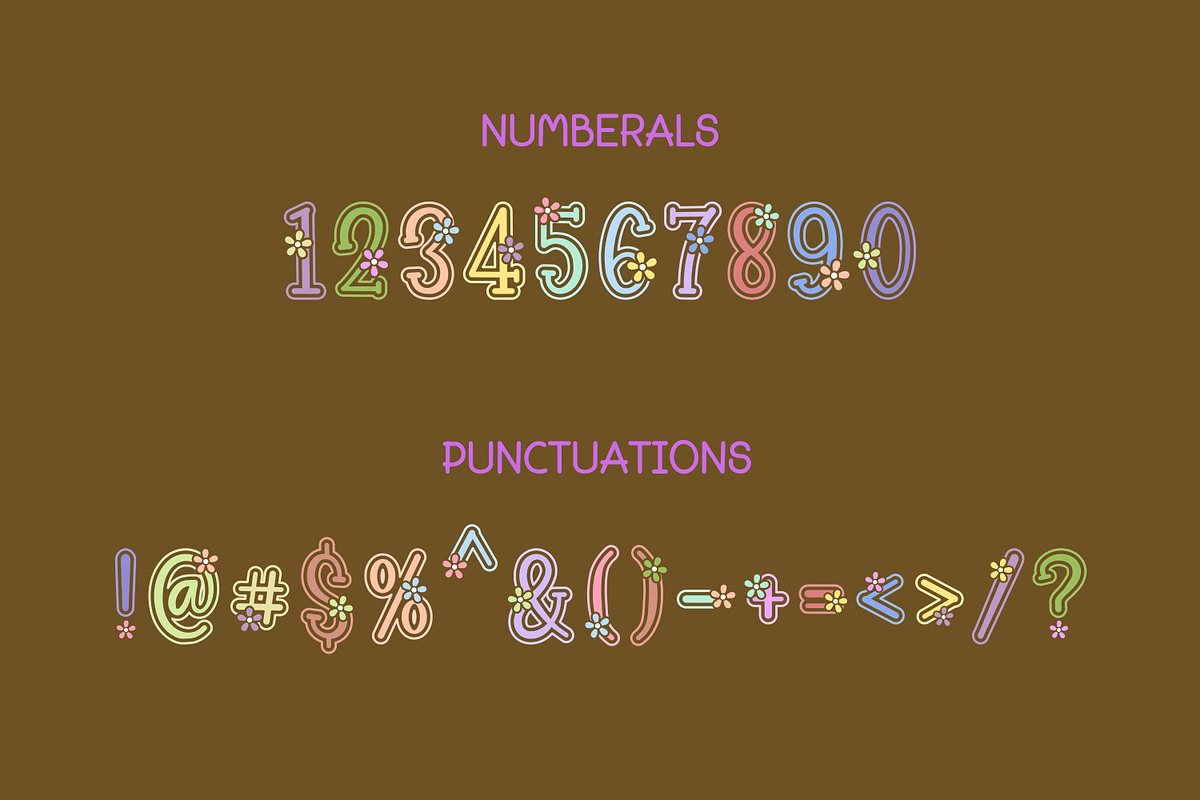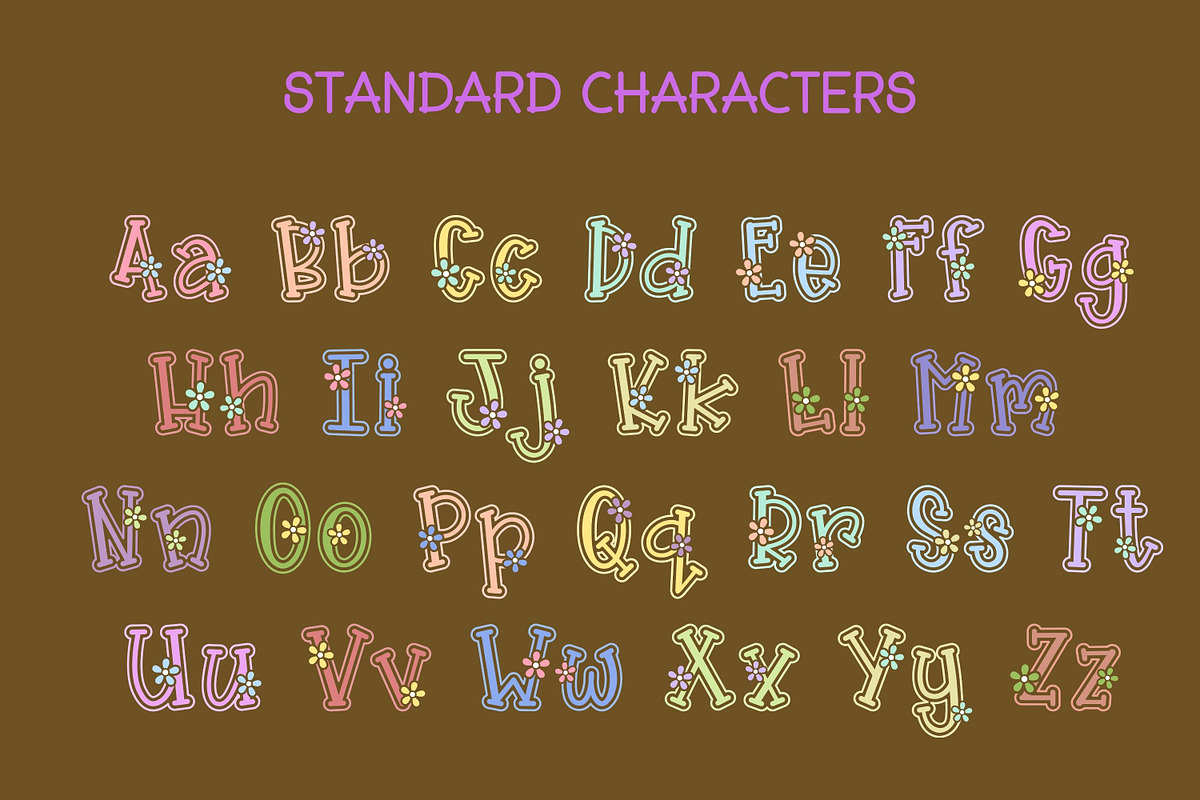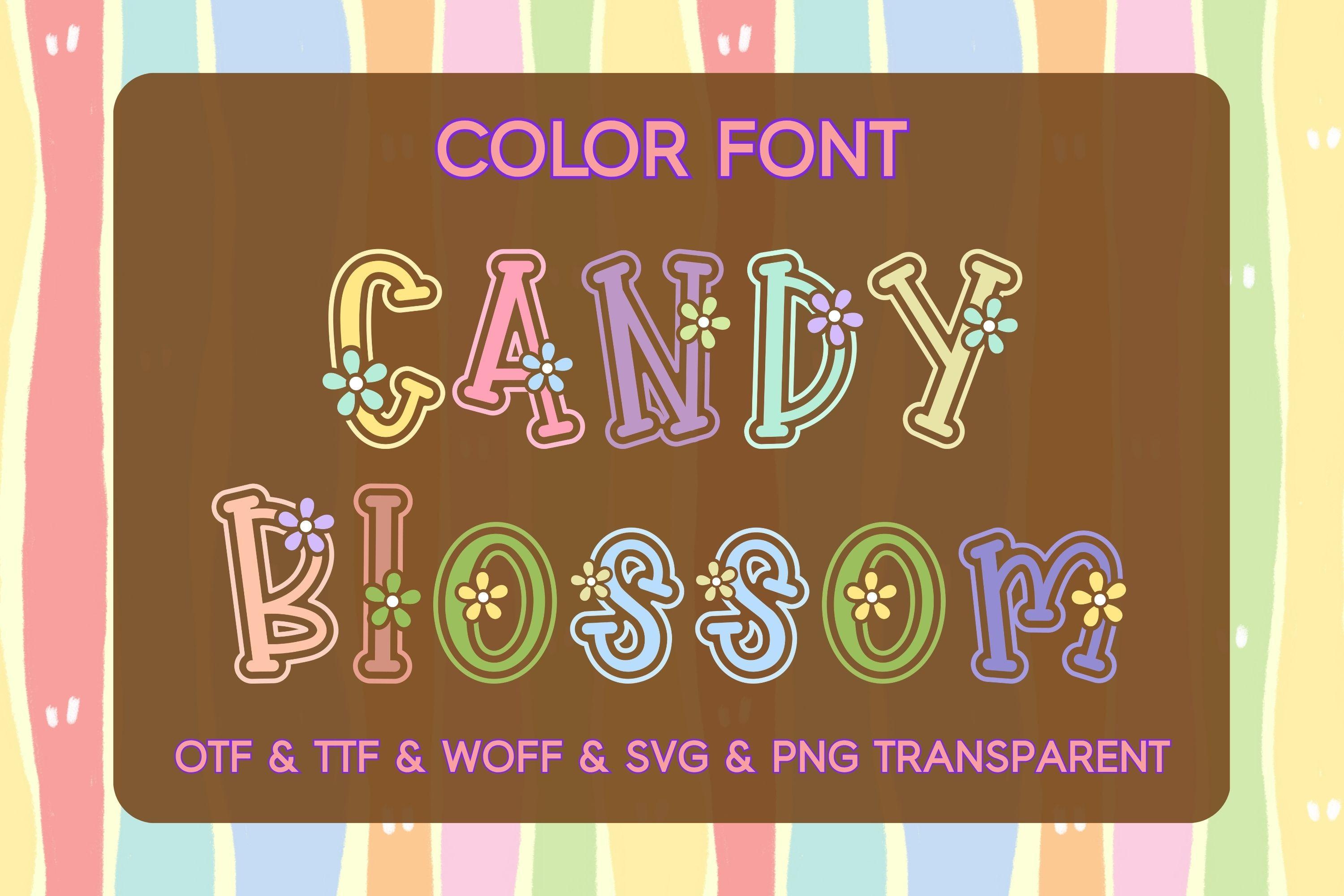
Candy Blossom - Color Font
Candy Blossom is a sweet and whimsical color font inspired by pastel candies and blooming spring flowers. Each letter is decorated with adorable floral accents in soft candy colors, making it perfect for cheerful and playful designs. This font includes uppercase, lowercase, numbers, and punctuation, allowing you to create eye-catching titles, invitations, greeting cards, stickers, sublimation projects, classroom decorations, children's products, and more. Compatible with modern design software that supports color fonts.